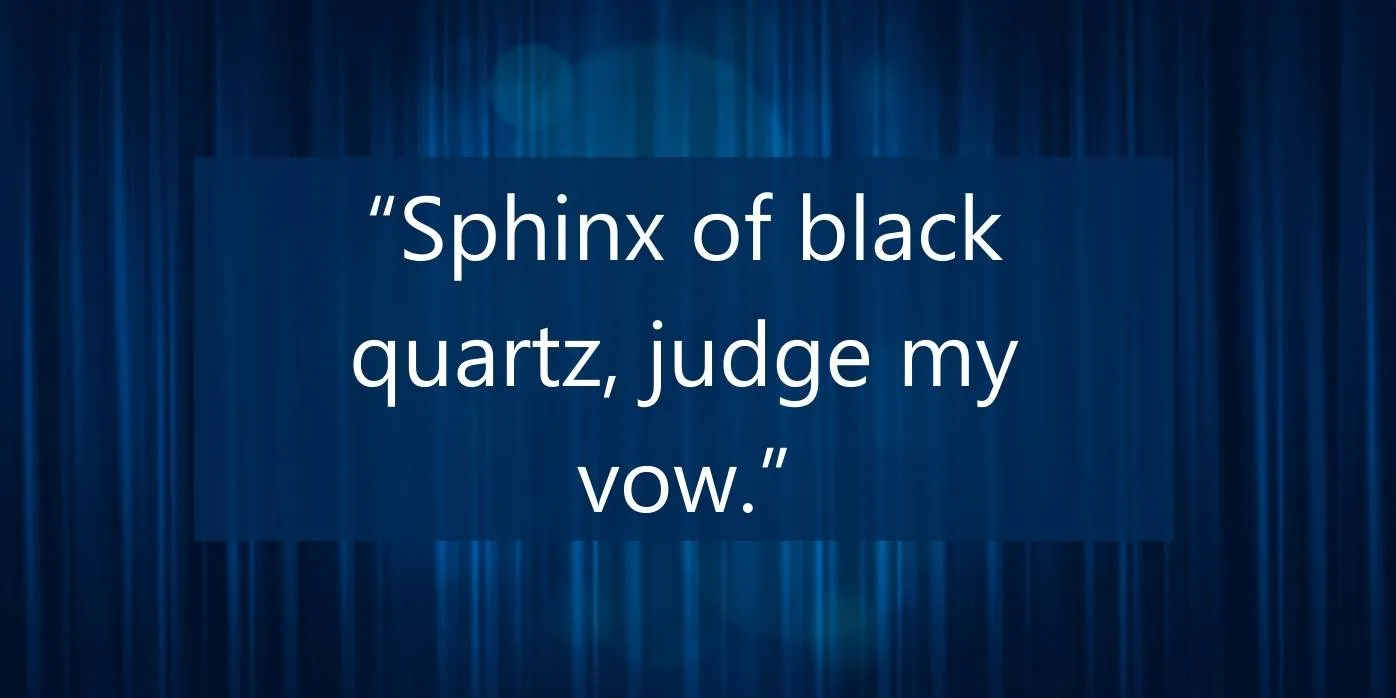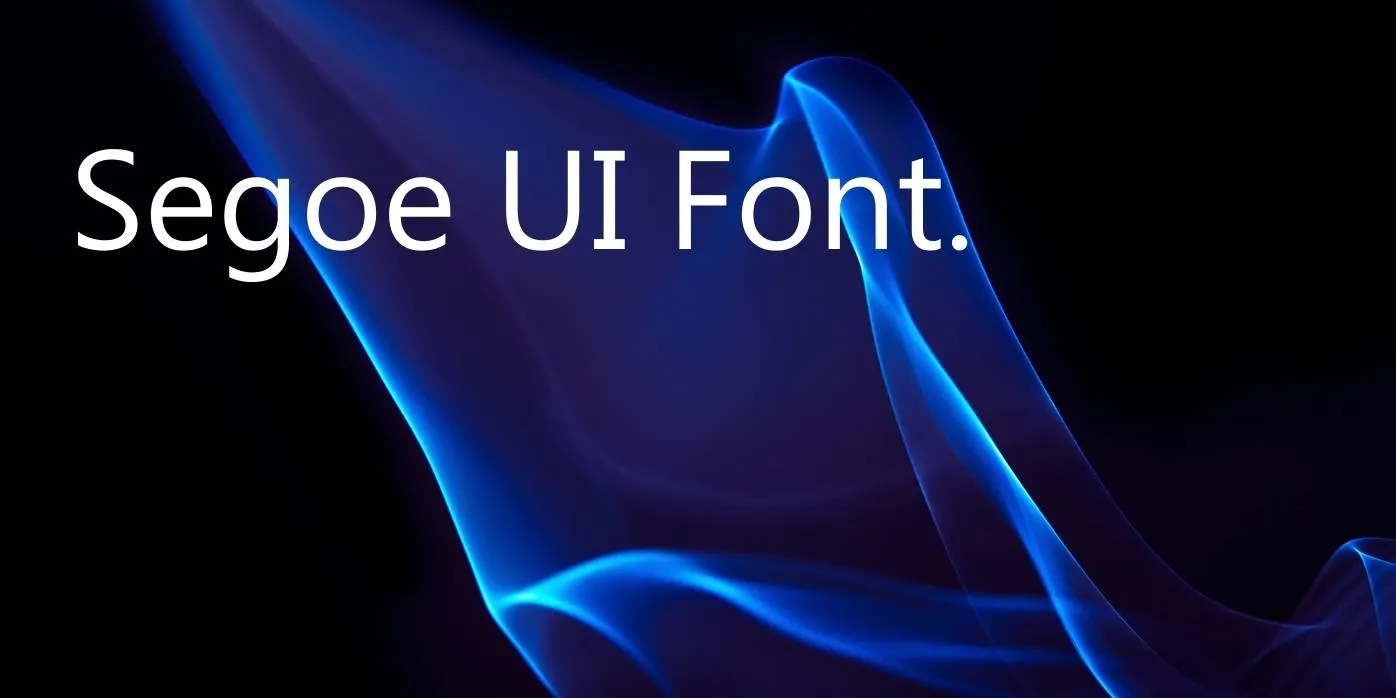
Segoe UI Font
Here, we are consulting about a tremendous and stylish font family that is known by the name Segoe UI Font. This interesting font belongs to the Sans-Serif font family. Frequently, this classic typeface is suitable for Microsoft Applications. This awesome font family was designed by famous and elegant designer Steve Matteson.
There is a need to create an attractive and understanding typeface for various necessities. So, for that purpose American designers work on this modern typeface. Mostly this cozy font family is available for many of the Microsoft designs. Open Sans Font is one of the most similar fonts to this glorious typeface.
It works in the same manner in various projects. This tremendous font family is coming in various variants. There are some common variants are available like Samibold Version, Italic version, and many more. These unique Variants increase its overall performance.
This typeface fulfills all the belongings and requirements of users.